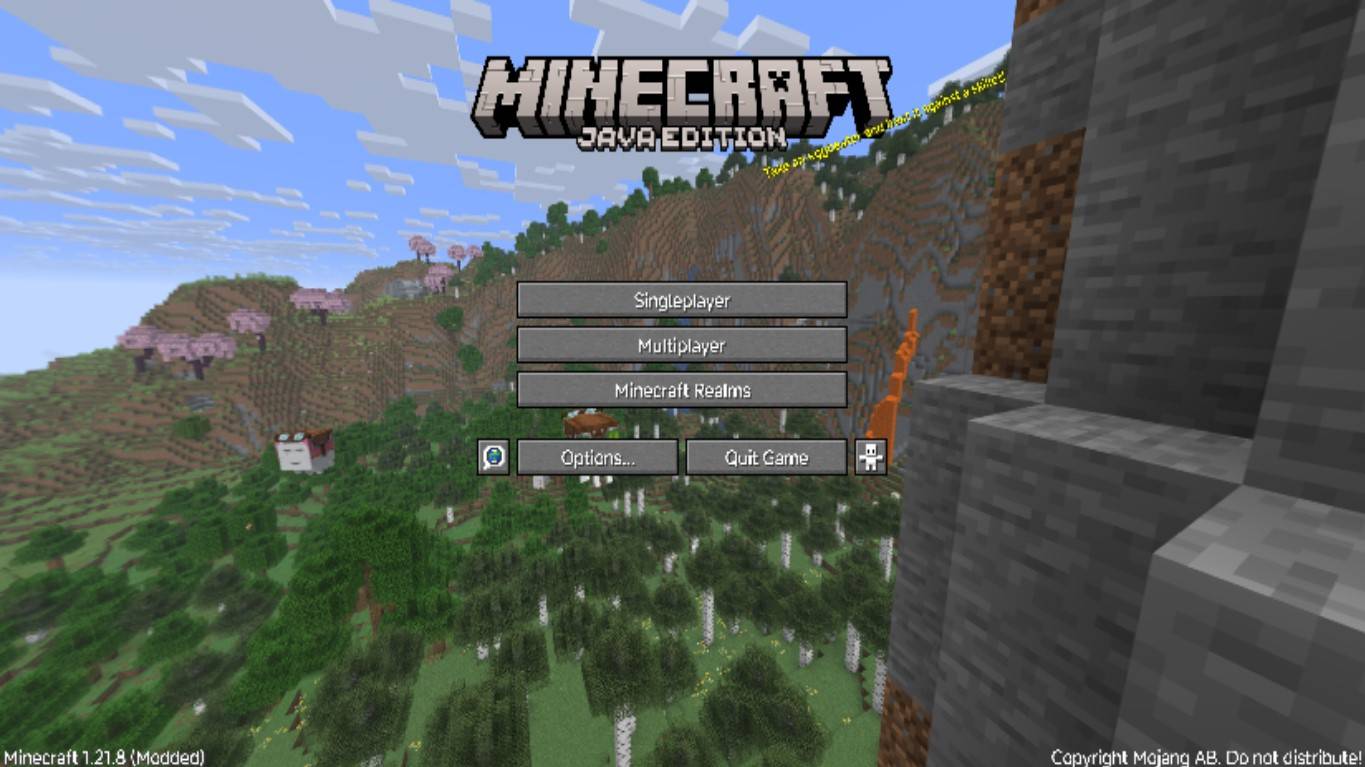
MiSans Xiaomi Font - Resource Pack
MiSans Xiaomi Font replaces the default Minecraft font with MiSans, a modern and highly readable typeface.
Designed to be clean, minimal, and comfortable on the eyes, this font gives Minecraft a fresh visual style while staying clear and easy to read in both gameplay and UI elements.
This resource pack is suitable for players who prefer a smoother, more contemporary font without sacrificing clarity. Perfect for long play sessions, building, or reading in-game text with better visual comfort.
Screenshots from the game. Tested on Minecraft version 1.21.8.